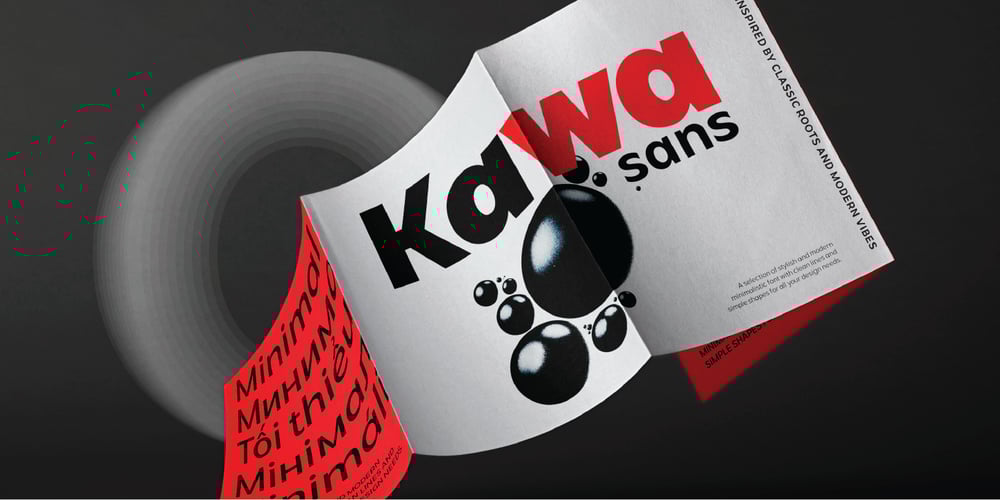
Kawa Sans Font Family was designed by Wahyu Rahmawan and published by Factory738. Kawa Sans contains 20 styles and family package options. Introducing Kawa Sans – the ultimate level of flexibility in sans-serif fonts. Kawa Sans seamlessly blends classic elegance with current flare and comes in a variety of weights, from delicate hairline to dominating heavy, making it suited for any design demand. Its simple lines and precise curves ensure readability while also projecting sophistication, making it an excellent choice for a variety of design tasks. Aside from its visual attractiveness, Kawa Sans has important international language support, making it suitable for a global audience. Elevate your ideas with confidence, knowing that Kawa Sans embodies the ideal blend of classic charm and contemporary elegance, offering excellence in a variety of design projects.